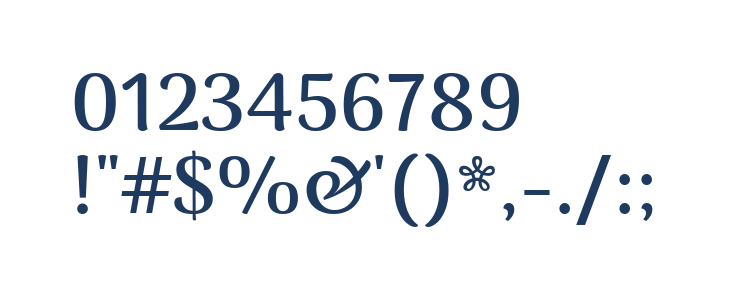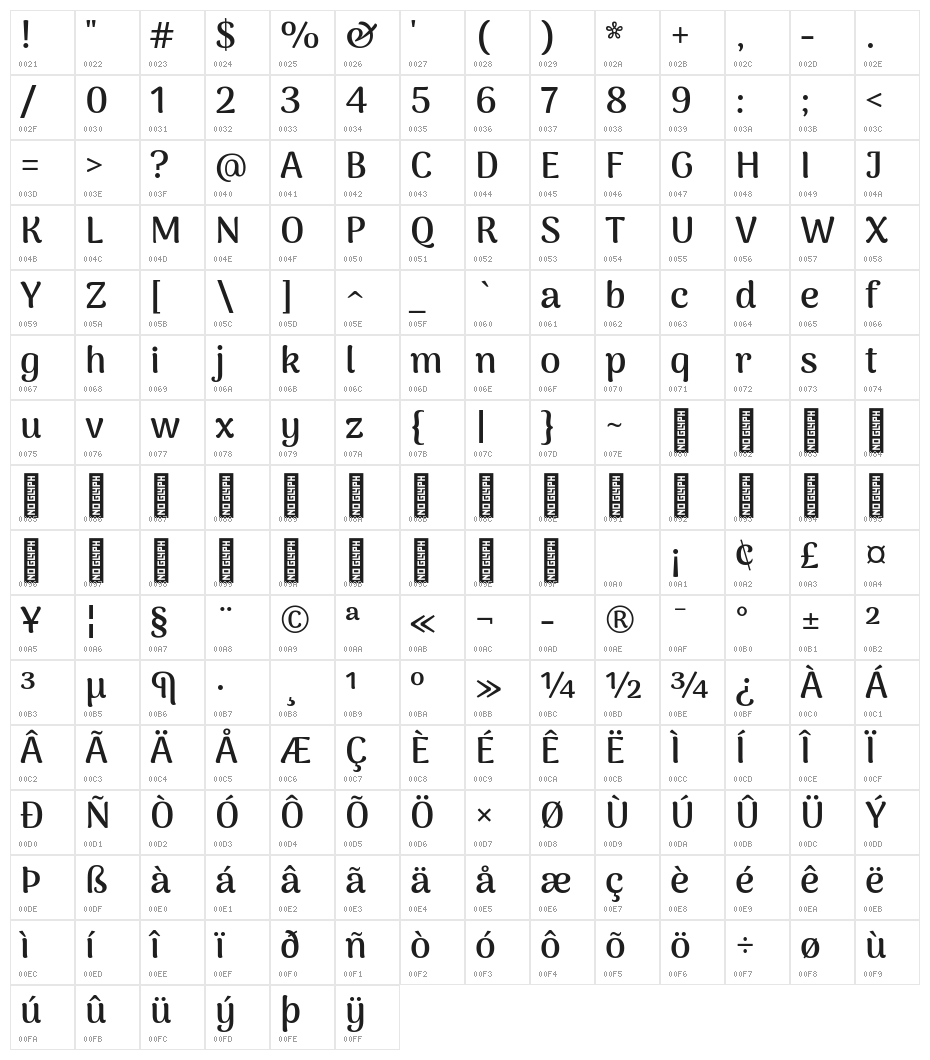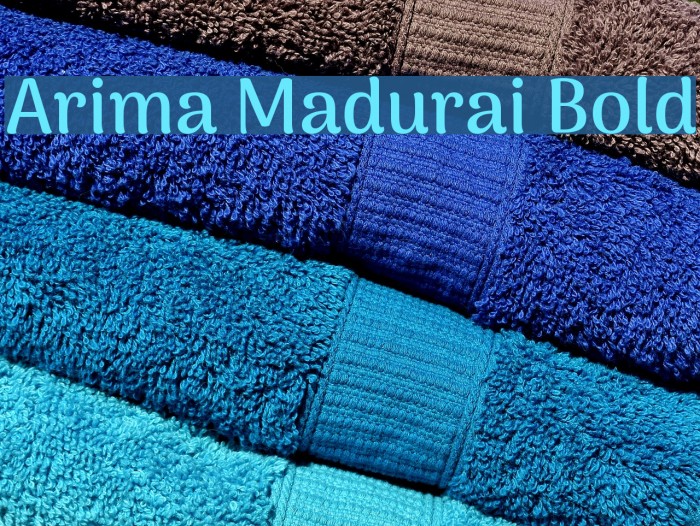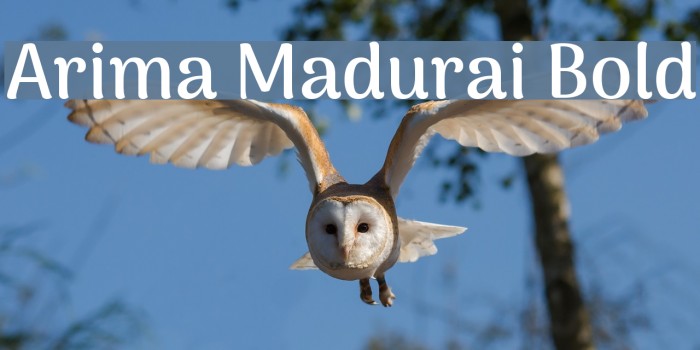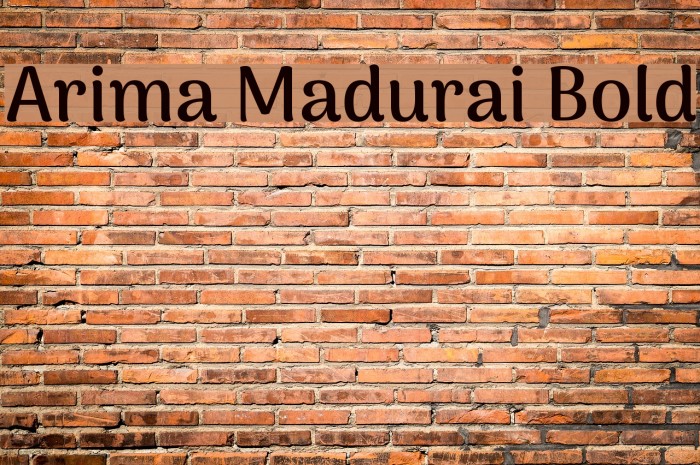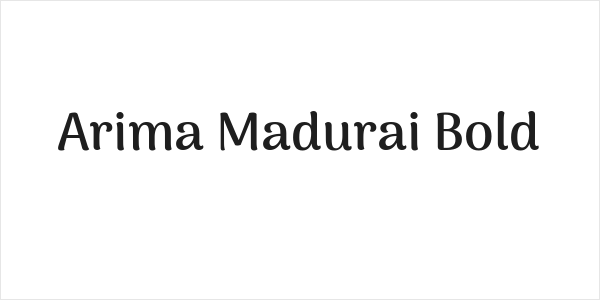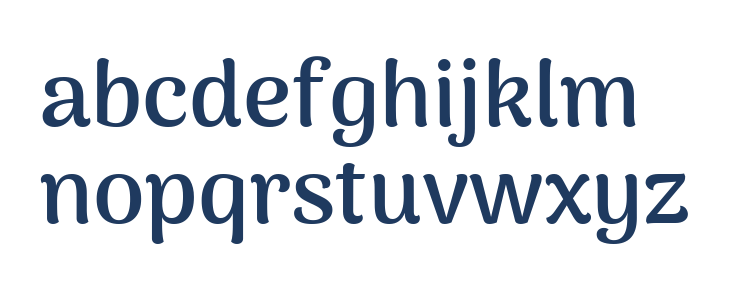
Arima Madurai Bold Font
Arima Madurai Bold Description
This font features a playful and rounded design with a friendly and approachable appearance. The characters are bold and well-defined, with a slight curvature that adds a touch of whimsy. The uppercase letters maintain a consistent height, while the lowercase letters have a slightly larger x-height, enhancing readability. The numerals are clear and distinct, matching the overall style of the alphabet. Special characters are designed with the same playful curves, ensuring consistency across all glyphs. This font is versatile, suitable for both digital and print media, and can be used to convey a sense of warmth and friendliness.
| Use Case | Headlines, Logos, Casual Text |
| Proposed Projects | Ideal for children's books, playful branding, friendly invitations, and casual social media graphics. |